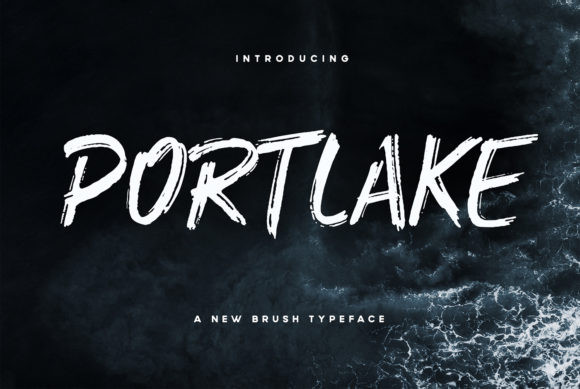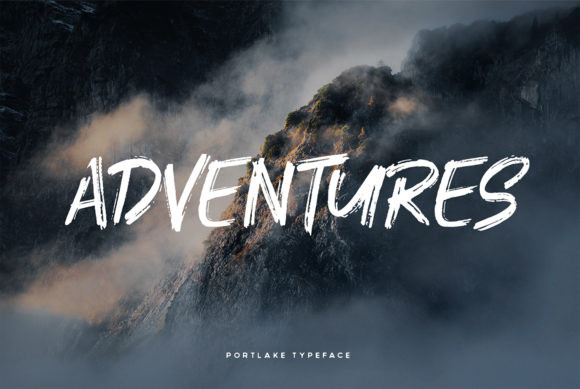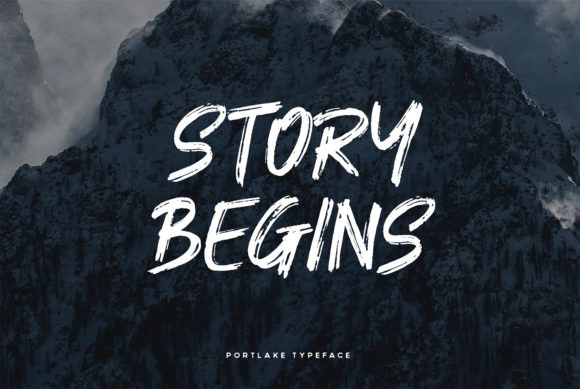
Portlake Font
Portlake is a hand crafted brush typeface. This great all caps font will add a strong personality to any crafting project. It will look outstanding in any context, whether it’s being used on busy backgrounds or as a standalone headline!